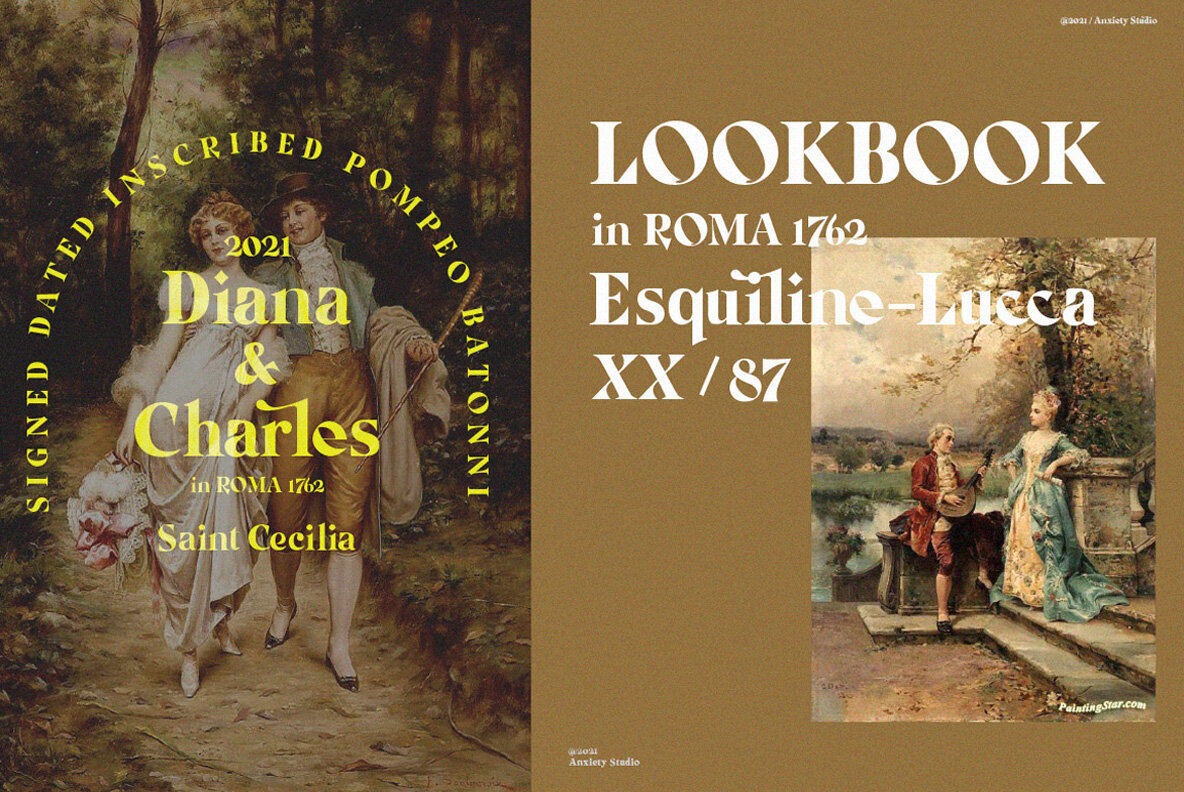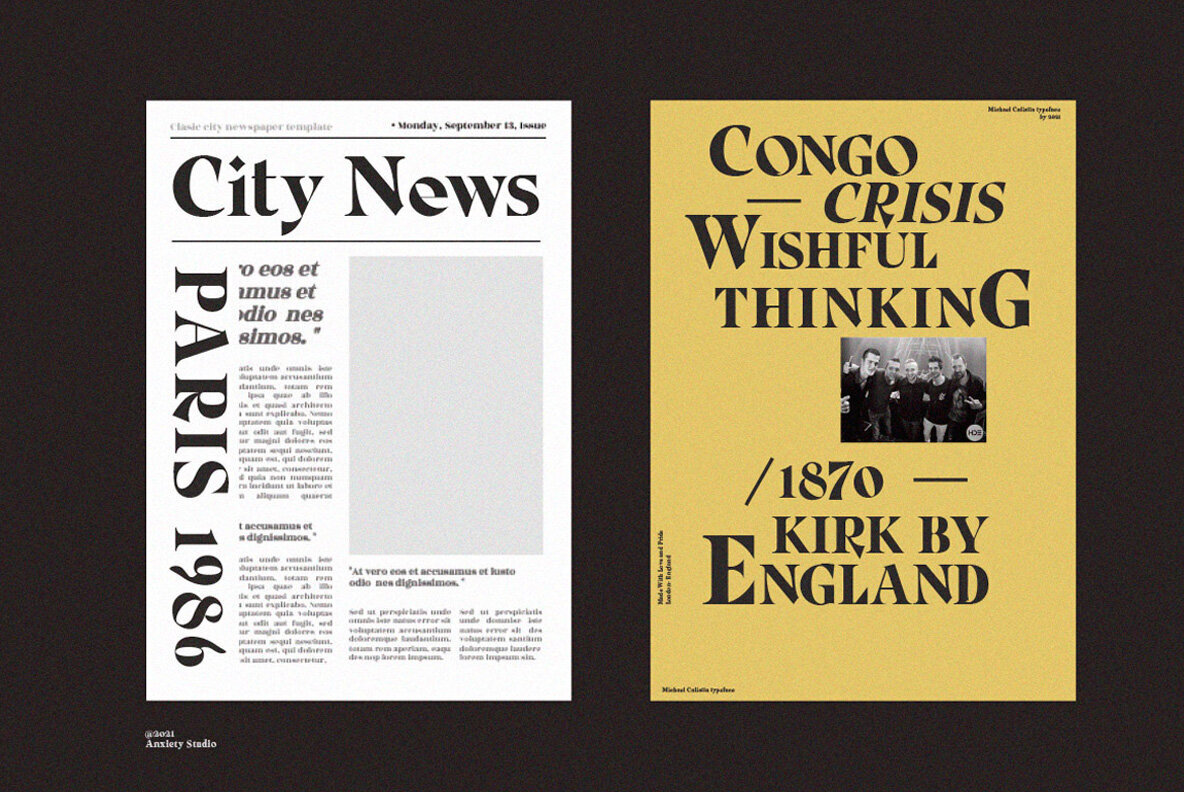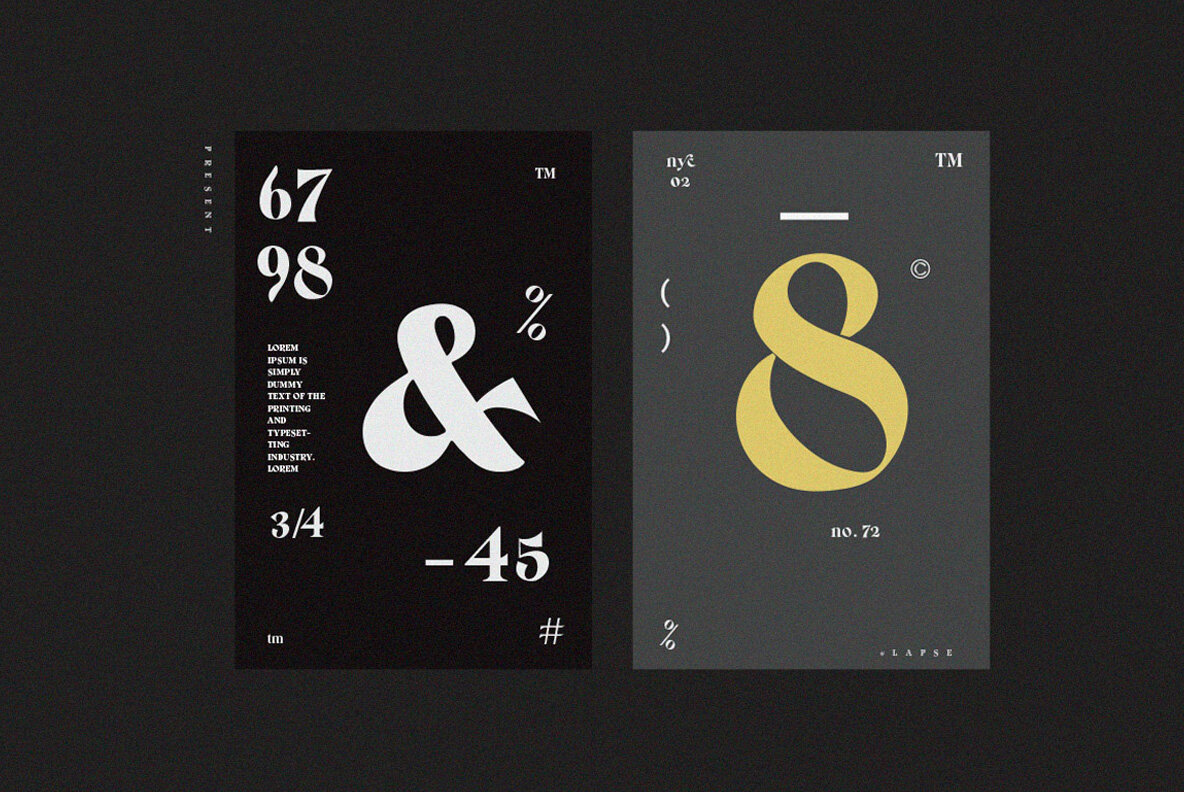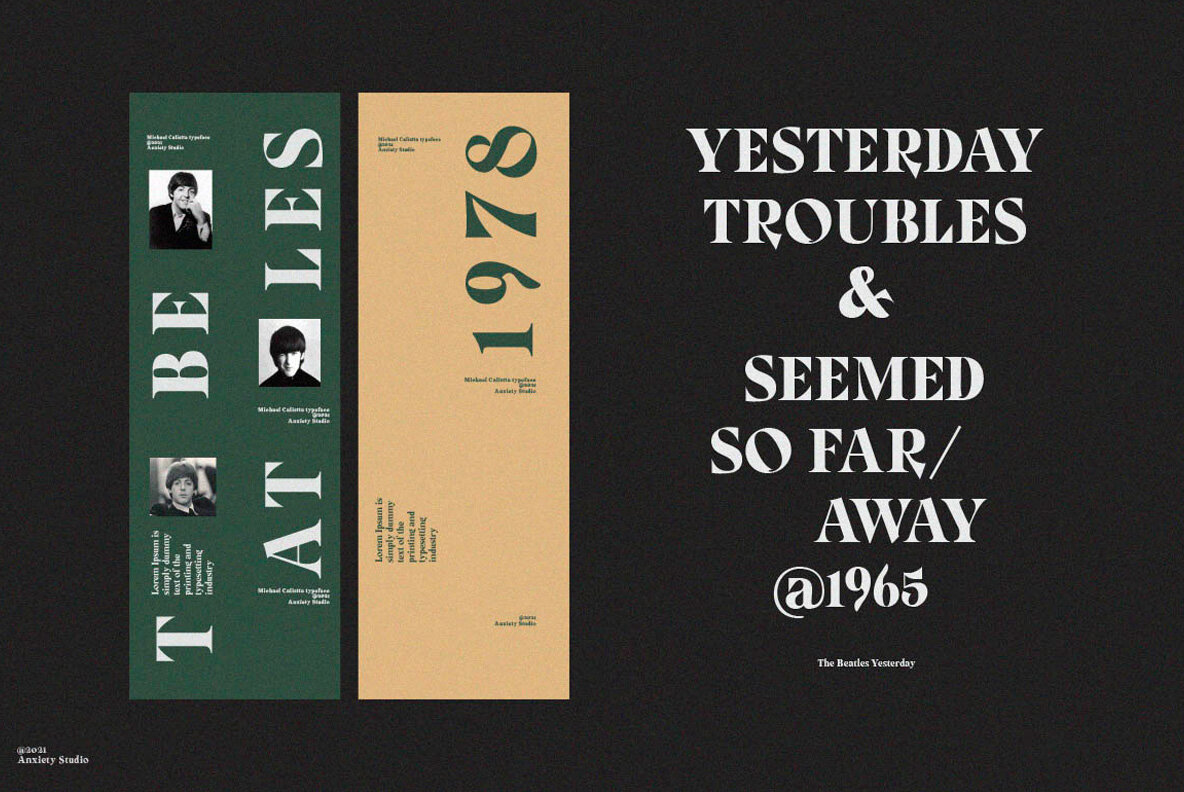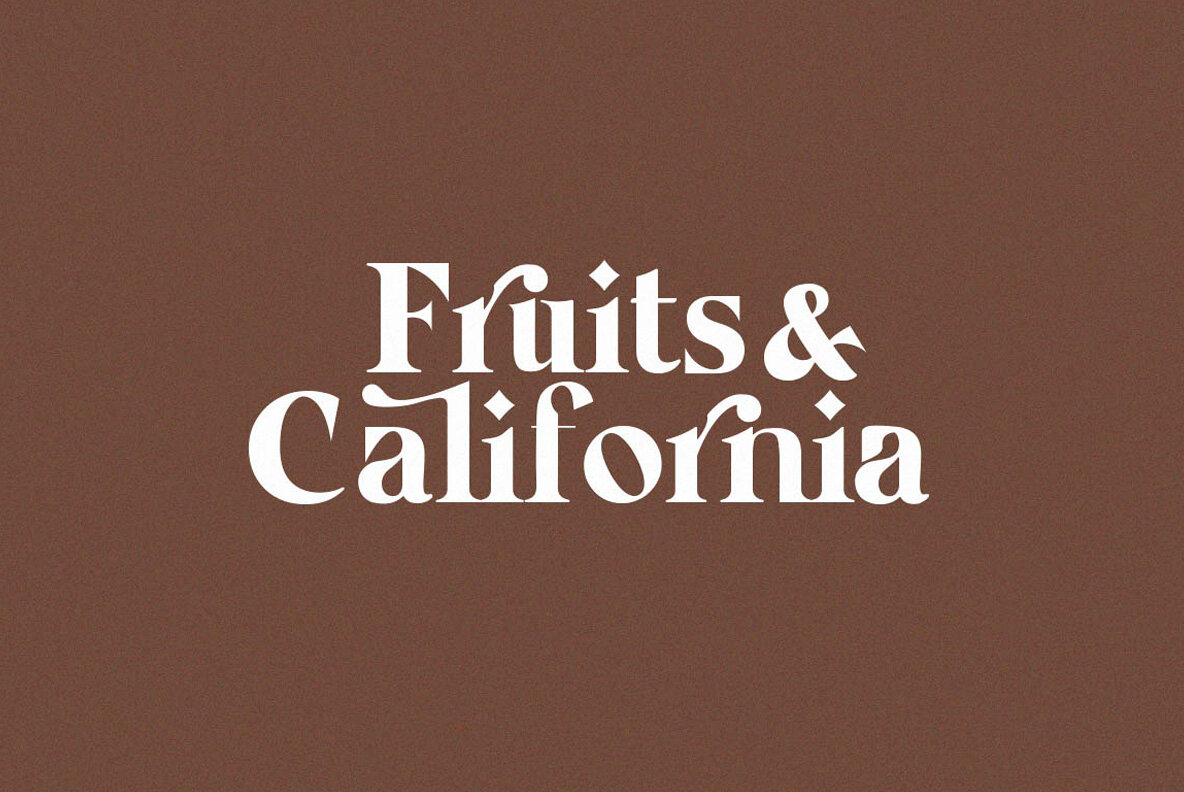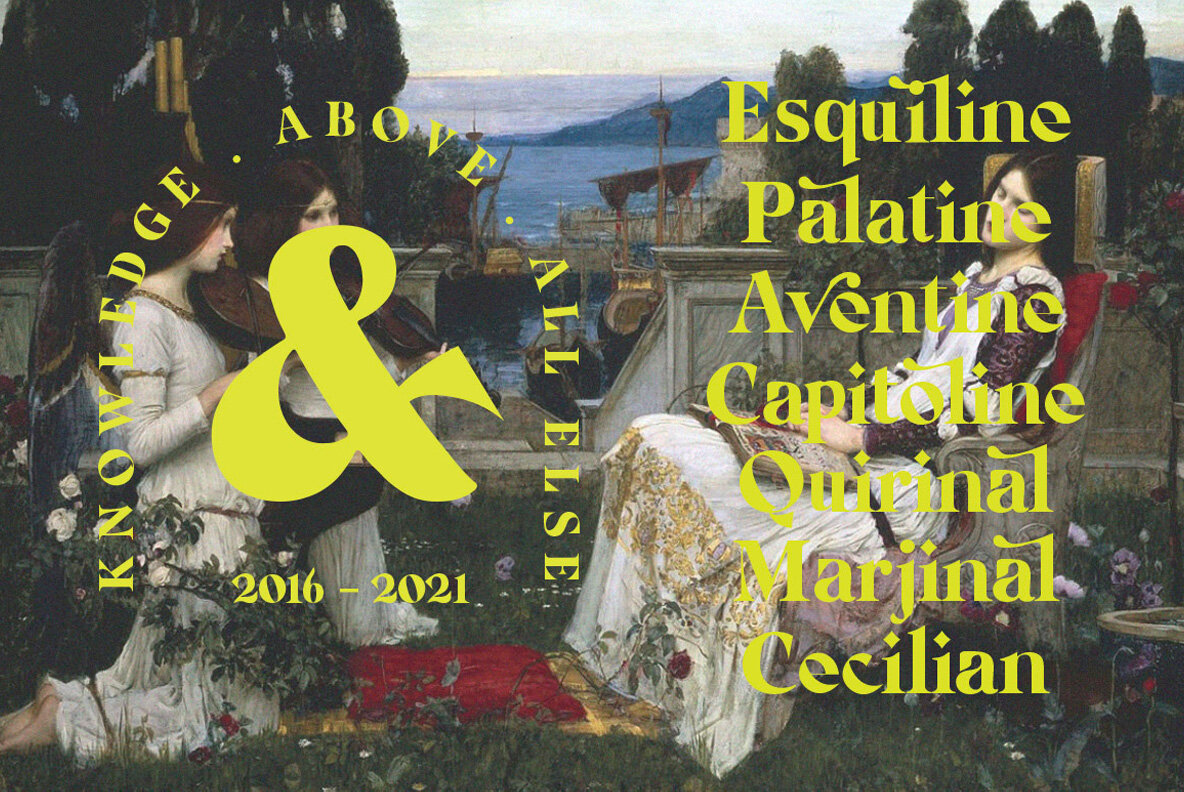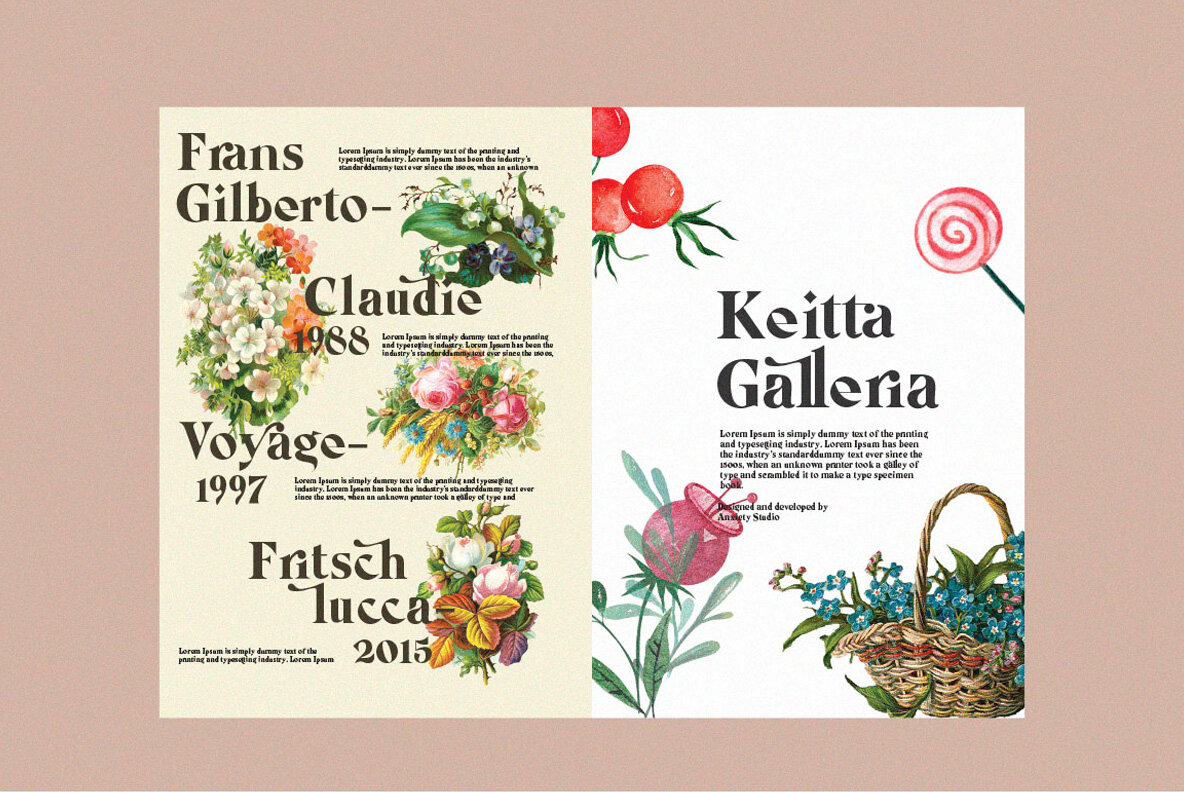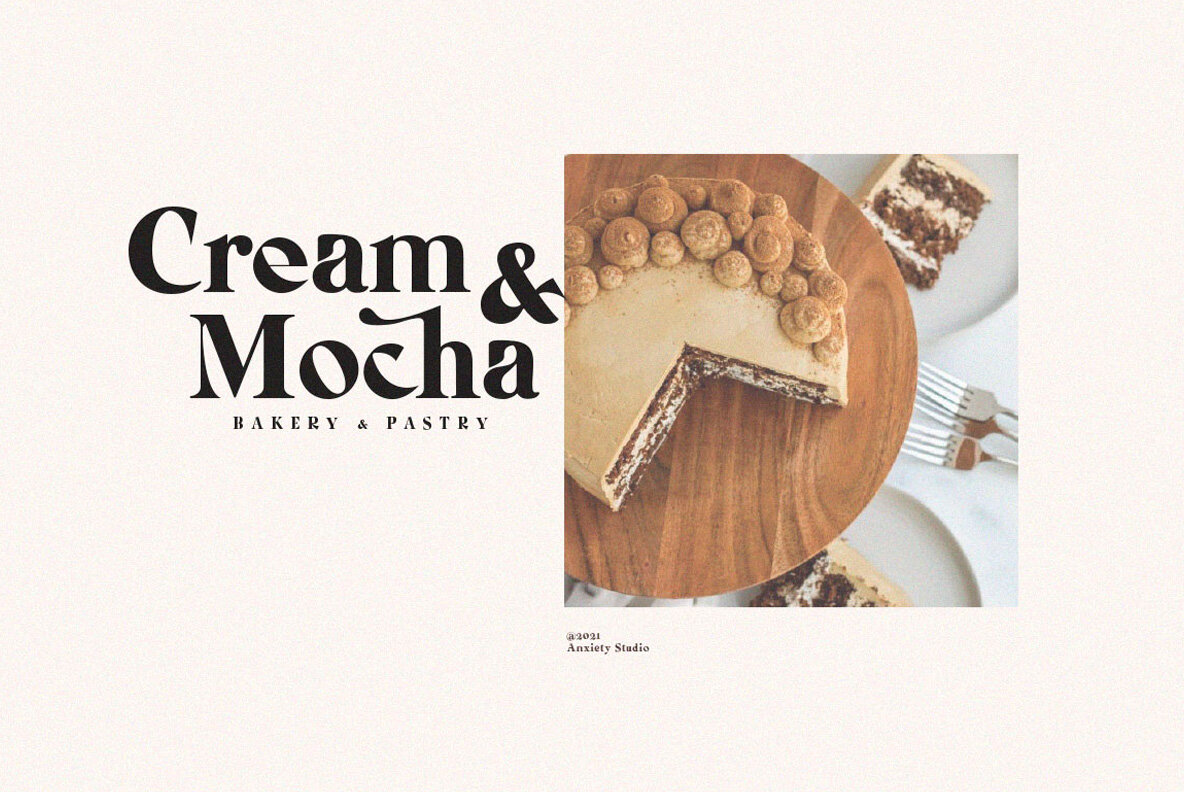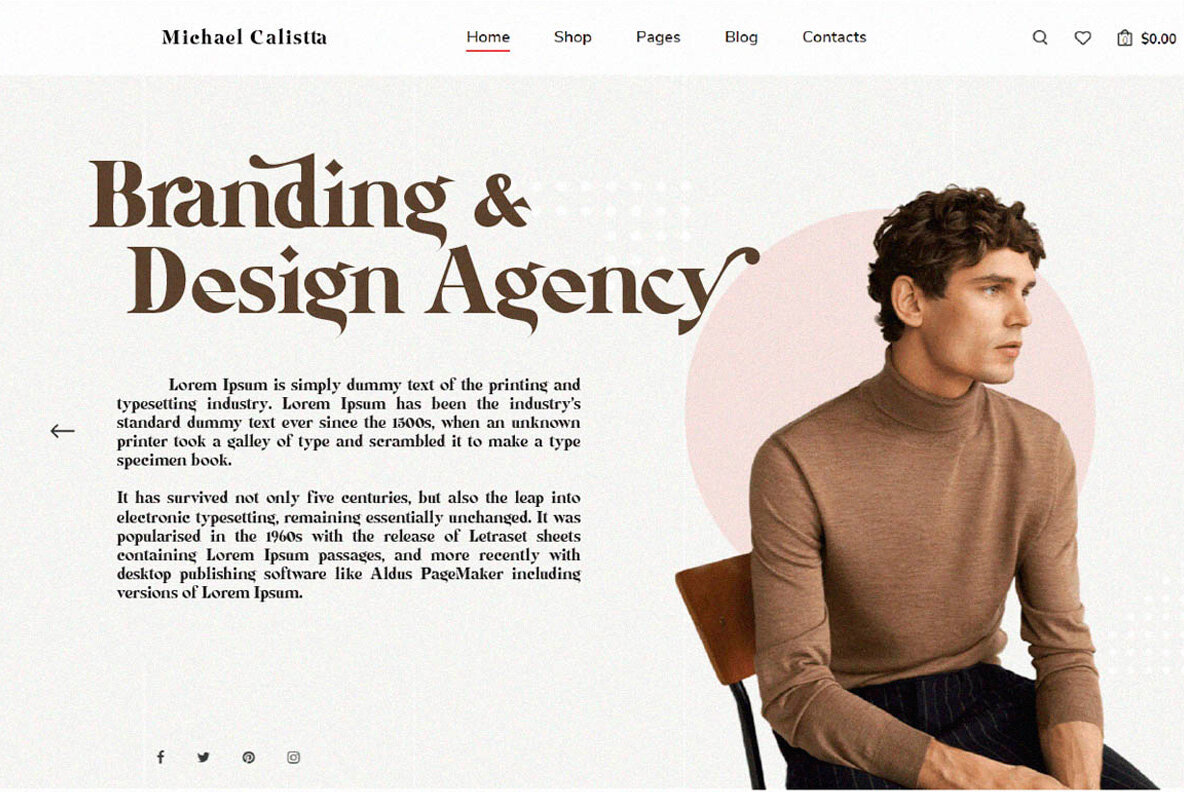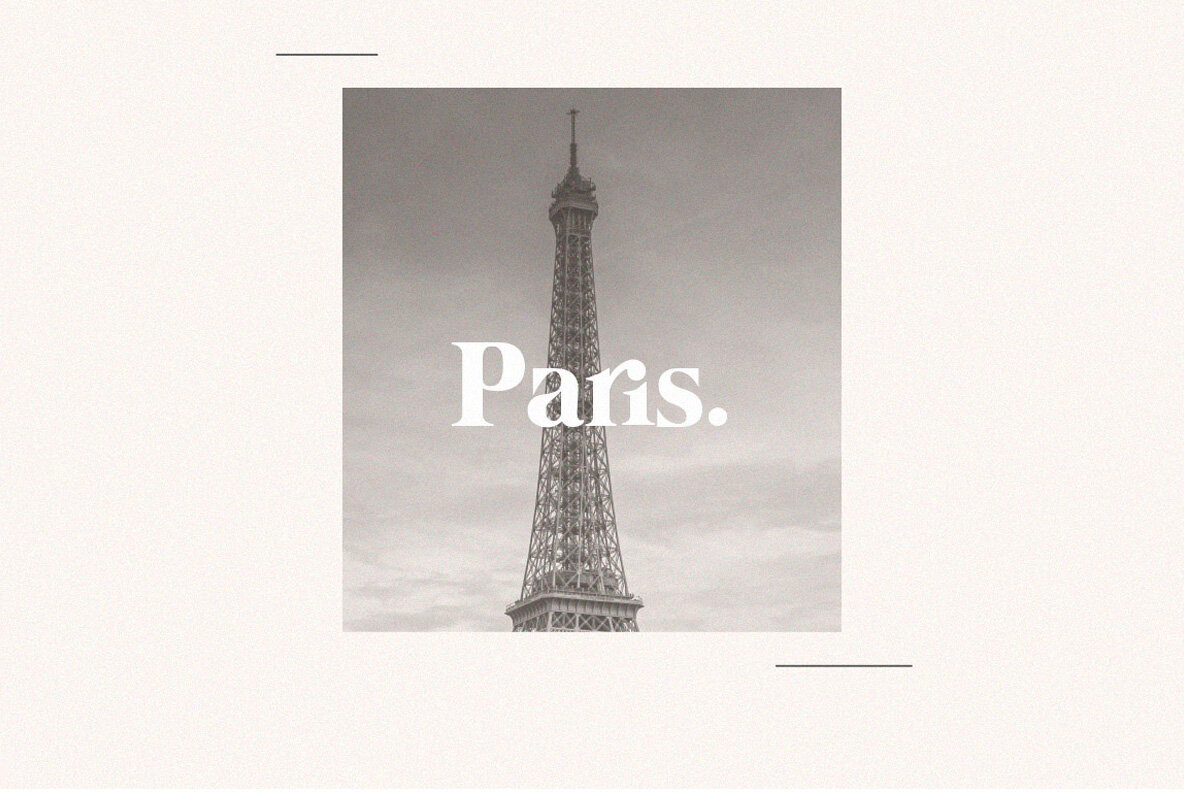
Michaela Calistta Font
Michaela Calistta is a vintage bold font with classic roman style and decorative serif style. This is a very versatile font that works well for designs, beautifully crafted to be editorial and convincing, making it a great complement to many designs, resulting in stunning logos, Clothing Branding, product packaging, branding projects, Logo design, magazine, wedding invitations, blog posts, Instagram, and more! A vintage aesthetic in a modern and minimalist way, Michaela Calistta includes a complete set of lowercase and uppercase letters with additional alternatives, beautiful ligatures, and binders that make the letters more elegant. Features: - Bonus Font Orlando Signature TTF, OTF - Lowercase and Uppercase - Stylistic Alternates & Ligatures - Numerals & Punctuation - Format File: TTF,OTF, Web